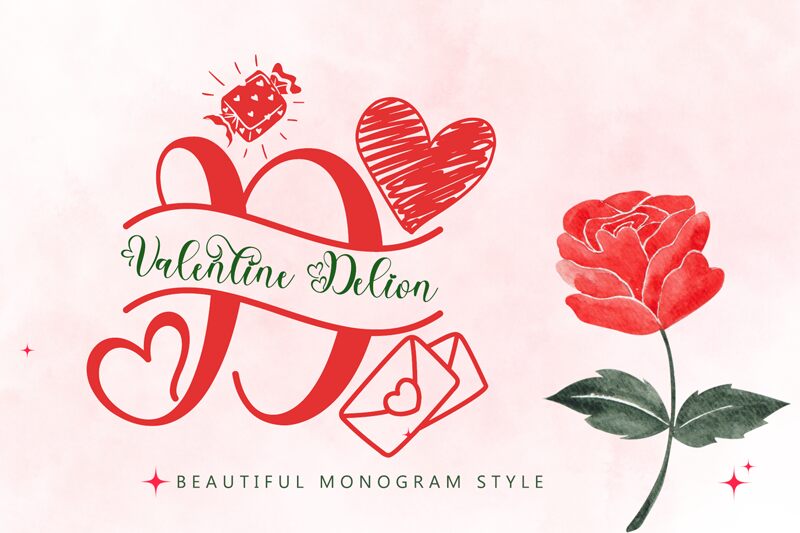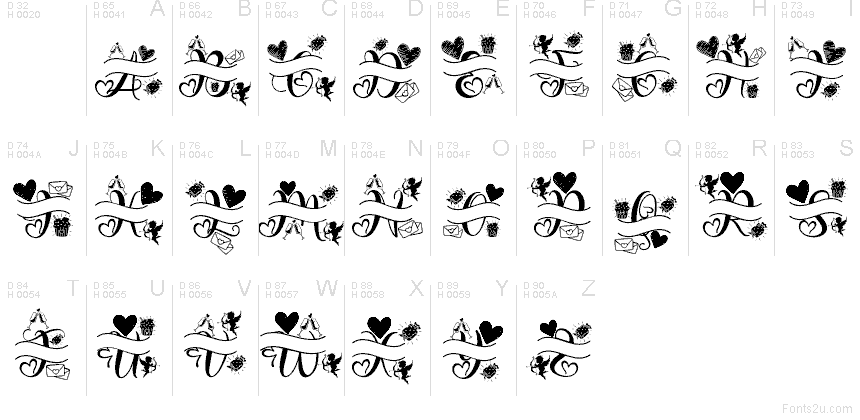
Valentine Delion Monogram
Valentine Delion Monogram font by Yoga Letter is a free romantic calligraphy typeface crafted for holidays and heartfelt occasions. Flowing letterforms curl into leafy swashes, hearts, and tiny decorative accents, creating ready‑made monograms that feel like hand-inked flourishes on fine stationery. The Valentine Delion family brings a lush, ornamental texture that feels both whimsical and luxurious, like ribbon winding across a gift box.
Using Valentine Delion Monogram, your initials instantly become artwork, making this free font a natural fit for Valentine cards, wedding invitations, engagement announcements, gift tags, boutique logos, and social media graphics. It shines at larger sizes where the delicate curls and heart motifs can breathe; pair it with a clean sans serif for body text to keep layouts balanced and readable.